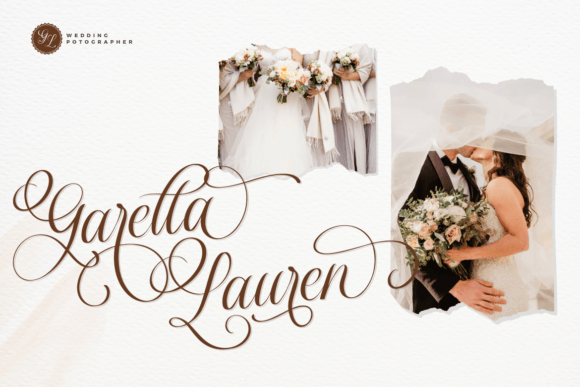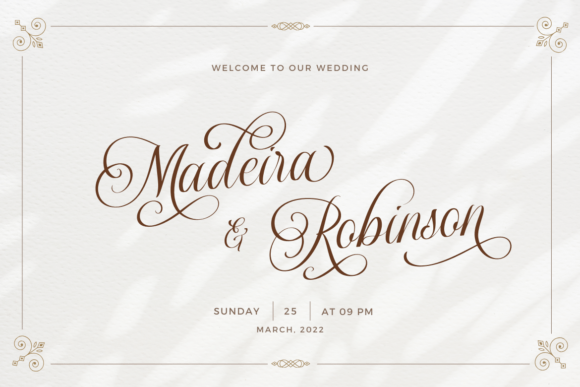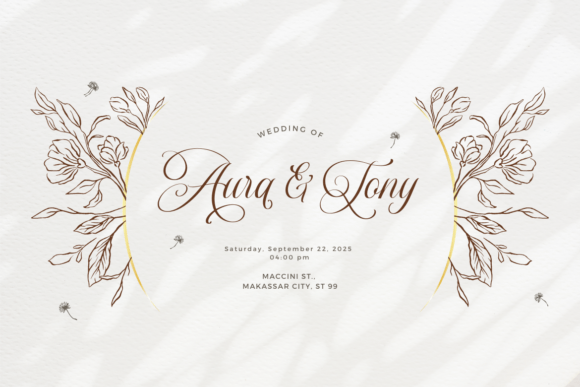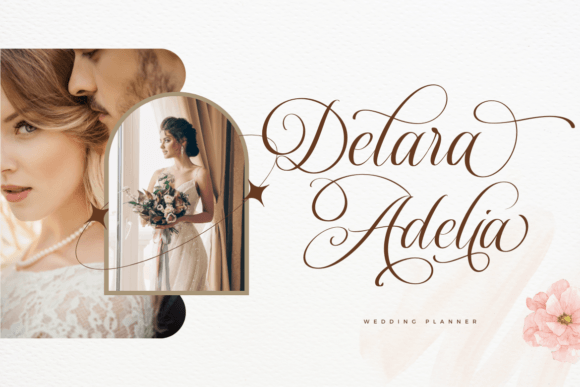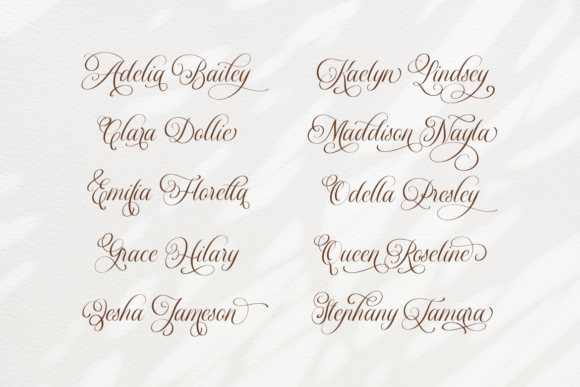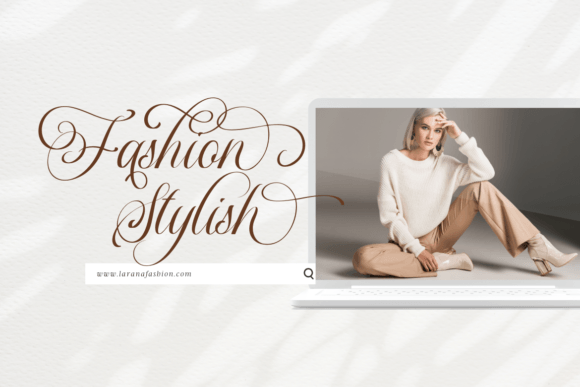
The Perfect Font for a Dreamy Wedding: Unveiling Dellanor Script Font
As a designer, there’s nothing quite like the thrill of searching for the perfect font to bring a client’s vision to life. For me, it was a particularly romantic wedding invitation design that sparked a creative frenzy – I wanted a font that would transport the couple’s guests to a whimsical world of love and luxury. And then, I stumbled upon the Dellanor Script Font – a game-changer that would elevate any design project to new heights.
This stunning font boasts a unique blend of elegance, sophistication, and romance, making it the perfect choice for wedding invitations, event signs, and other design projects that require a touch of whimsy and refinement. With its ornate and decorative style, the Dellanor Script Font is a valuable asset for designers looking to add a personal touch to their work.
Dellanor Script Font Key Features
- Unique Characteristics: Delannor Script Font features a beautiful, handwritten style with subtle imperfections, giving it a personal and artistic touch.
- Kerning and Ligatures: Delannor Script Font includes advanced kerning and ligature features, ensuring smooth and professional typography in both print and digital media.
Dellanor Script Font Review
I’ve had the chance to work with the Dellanor Script Font, and overall, I’m quite pleased with its performance. ✨ The fluid connections between letters are well-executed, and the subtle flair of the script adds a touch of elegance to any design. The font’s high contrast between thick and thin lines creates a visually appealing effect that makes it perfect for headings and titles.
- Beautifully crafted connections between letters ✨
- Subtle flair that adds elegance to designs ✨
- High contrast between thick and thin lines ✨
However, there are a few limitations to consider. ⚠️ The font’s flow can be disrupted when used with short words or in smaller sizes. Additionally, some letters may require more careful placement to maintain a balanced look. The font’s aesthetic may also not be suitable for all designs, particularly those with a modern or minimalist tone.
- May not work well with short words or in smaller sizes ⚠️
- Requires careful placement of certain letters ⚠️
- May not be suitable for modern or minimalist designs ⚠️
Overall, I think the Dellanor Script Font is a great addition to any designer’s toolkit. While it may have its limitations, its unique charm and versatility make it a valuable asset for a wide range of projects.
Dellanor Script Font Practical Application Guide
To get the most out of the Dellanor Script Font, use it in combination with other design elements that complement its elegant and cursive style. Experiment with different font sizes, colors, and combinations to create a unique look.
The Dellanor Script Font is ideal for use in wedding invitations, event programs, and other elegant designs. It’s also great for use in digital products, such as ebooks and online courses, where a touch of elegance is desired.